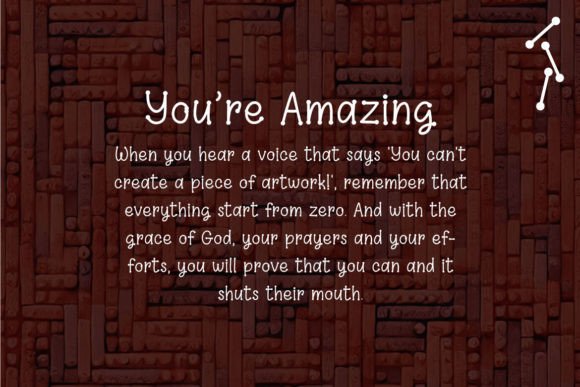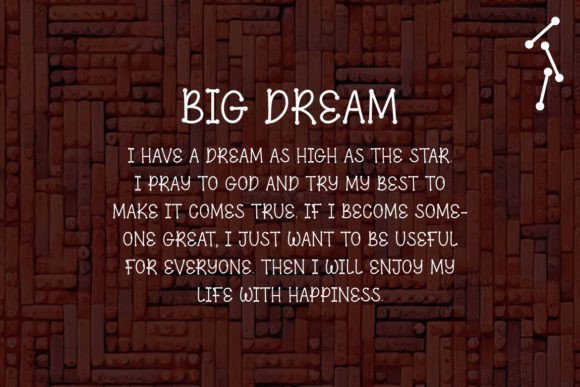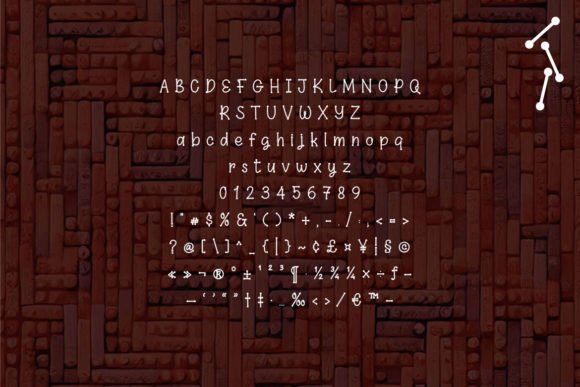
Introducing Bricky: The Playful Handwritten Comic Font That Brings Your Designs to Life
Have you ever been in the middle of a design project, and suddenly, you realize that it’s missing that special something? Maybe you’re working on a children’s book, a comic, or a poster, and you just can’t seem to find the right font to capture the playful, energetic vibe you’re going for. I know I have! It was during one of those moments that I stumbled upon **Bricky**, a playful handwritten comic font that instantly brought my project to life.
The Bricky Difference: A Font That Feels Handmade
**Bricky** is designed with a fun and quirky style that captures the essence of hand-drawn lettering. Its unique set of characters features bouncy, uneven strokes that reflect the spontaneity and charm of a true handmade font. This makes it perfect for a wide range of creative uses, from children’s books and comics to posters and social media graphics. With **Bricky**, you can add a friendly and approachable feel to your designs that will make them stand out.
What I Love About Bricky ✨
- ✅ Playful and energetic vibe: **Bricky** brings a lively spirit to your designs that’s hard to resist.
- ✅ Easily readable: Despite its playful nature, **Bricky** is easy to read, making it perfect for both digital and print media.
- ✅ Versatile style: **Bricky** fits a wide range of creative uses, from children’s books to social media graphics.
- ✅ Bold and dynamic appearance: **Bricky** stands out on any page, ensuring your text catches the eye.
- ⚠️ May not be suitable for formal projects: Due to its playful nature, **Bricky** might not be the best fit for formal or professional projects.
- ⚠️ Some characters may require manual kerning: As with any handwritten font, some characters may require manual kerning to achieve the best results.
Exploring Bricky’s OpenType Features
**Bricky** comes with a range of OpenType features that allow you to customize your text and add more personality to your designs. These features include:
| Feature | Description |
| Glyphs | Alternate characters that can be used to add more variety to your text. |
| Stylistic Alternates | Different versions of characters that can be used to create a more playful or formal look. |
| Ligatures | Combinations of characters that can be used to create a more cohesive look. |
The Story Behind Bricky
**Bricky** was designed with the intention of creating a font that feels handmade and playful. The designer wanted to capture the essence of hand-drawn lettering and bring it to digital and print media. The result is a font that’s perfect for designers who want to add a touch of fun and personality to their work.
Q: What is Bricky?
A: **Bricky** is a playful handwritten comic font designed to bring a lively and energetic vibe to your projects.
Q: Is Bricky easy to read?
A: Yes, **Bricky** is easy to read, making it perfect for both digital and print media.